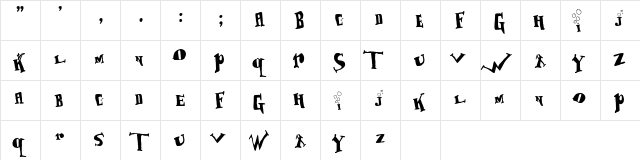
BabOonjaZzbaSsoOn Regular
Design Context for BabOonjaZzbaSsoOn Typeface
BabOonjaZzbaSsoOn is a composed and adaptable typeface that performs quietly and consistently across a wide range of design contexts.